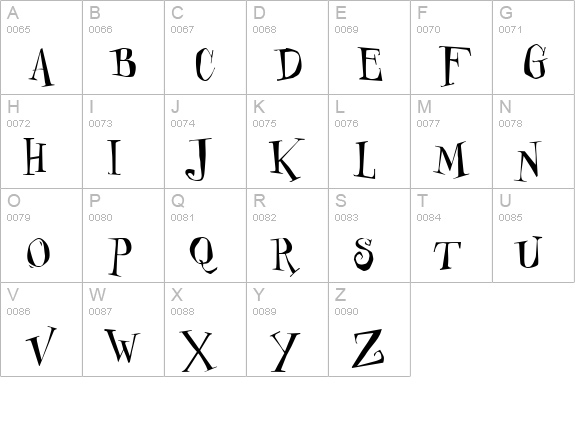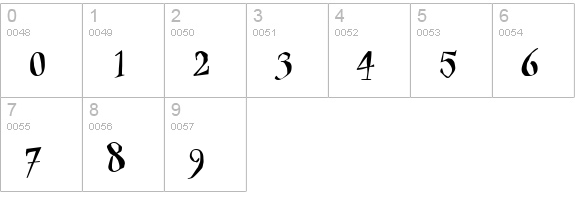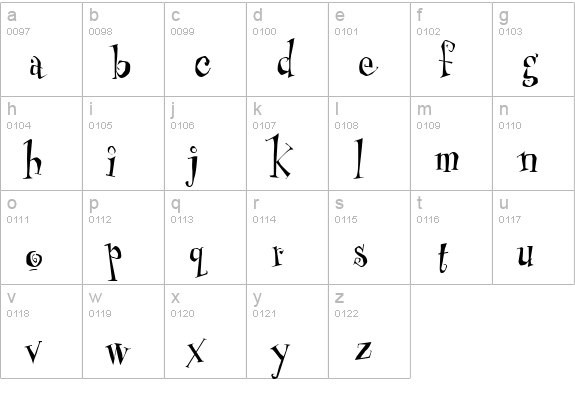
PFBuzzz Normal Unicodes is the standard, neutral variant in the PFBuzzz typeface family \xE2\x80\x94 well suited to general body text, paragraphs, and standard typographic work.
PFBuzzz Normal Unicodes font is a beautifully crafted typeface that exudes a perfect blend of elegance and modernity. With its clean lines and stylish curves, this font is perfect for a wide range of design projects, from branding to packaging to web design. The versatility of PFBuzzz Normal Unicodes font makes it a go-to choice for designers looking to make a statement with their typography. The best part? PFBuzzz Normal Unicodes font is completely free to download at FontsMarket.com. So whether you're a seasoned designer looking to add a fresh new font to your collection or a newcomer in need of a high-quality typeface, PFBuzzz Normal Unicodes font is the perfect choice. Download it today and elevate your designs with this stunning font.